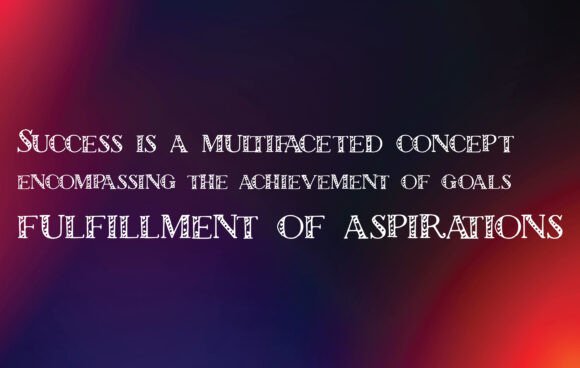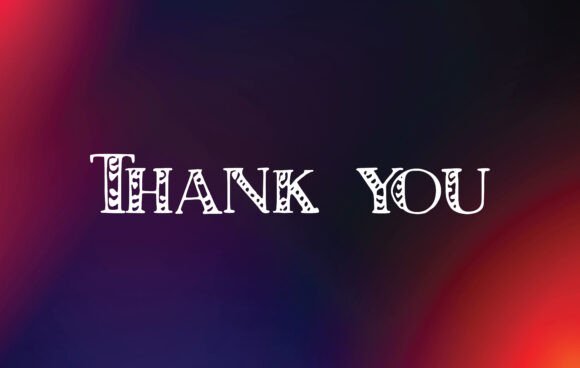
Introducing the Escher Font: Elevate Your Creative Projects with Elegance and Versatility
In the world of typography, fonts play a crucial role in bringing creative ideas to life. Among the numerous fonts available, the Escher Font stands out for its unique blend of elegance, legibility, and versatility. Designed to be a true favorite among designers and crafters, this font has the potential to take your creative projects to the highest level. Whether you’re working on magazine headlines, t-shirts, social media graphics, branding materials, wedding invitations, or cards, the Escher Font is perfect for a wide range of applications.
What Makes the Escher Font Special?
The Escher Font is crafted with precision and attention to detail, making it an excellent choice for both title and body text. Its legibility is one of its standout features, ensuring that your message is conveyed clearly and effectively, regardless of the medium. This font’s design is inspired by the works of M.C. Escher, known for his impossible constructions and tessellations, which gives it a distinctive and artistic flair.
Key Features of the Escher Font
- Legibility: The Escher Font is designed to be easy to read, making it suitable for body text as well as headlines.
- Versatility: Its elegant design makes it perfect for a variety of projects, from digital media to print materials.
- Elegance: The font’s unique style adds a touch of sophistication and creativity to any design.
- Wide Range of Applications: Ideal for magazine headlines, t-shirts, social media graphics, branding, wedding invitations, cards, and more.
Applications of the Escher Font
The Escher Font’s versatility is one of its most appealing qualities. Here are some of the many ways you can use this font to elevate your creative projects:
Magazine Headlines and Editorials
Make a statement with your magazine headlines using the Escher Font. Its bold and elegant design ensures that your headlines will stand out, drawing readers into your stories and features.
T-Shirts and Apparel
Take your t-shirt and apparel designs to the next level with the Escher Font. Its unique style and legibility make it perfect for creating eye-catching and memorable designs.
Social Media Graphics
In the digital age, social media graphics are crucial for engaging with your audience. The Escher Font can help you create stunning social media graphics that stand out in crowded feeds.
Branding and Marketing Materials
Establish a strong brand identity with the Escher Font. Its elegance and versatility make it suitable for logos, brochures, business cards, and other marketing materials.
Wedding Invitations and Cards
Add a touch of elegance to your wedding invitations, greeting cards, and other stationery with the Escher Font. Its sophisticated design ensures that your special occasions are celebrated in style.
Tips for Using the Escher Font
To get the most out of the Escher Font, consider the following tips:
- Experiment with Sizes: The Escher Font looks great in various sizes, from large headlines to smaller body text.
- Play with Colors: Don’t be afraid to experiment with different colors to match your brand or design theme.
- Combine with Images: Pair the Escher Font with high-quality images or illustrations to create visually appealing designs.
- Maintain Consistency: Use the Escher Font consistently across your designs to establish a strong brand identity.
The Escher Font is a powerful tool for designers and crafters looking to elevate their creative projects. With its unique blend of elegance, legibility, and versatility, this font is sure to become a favorite in your collection. Whether you’re working on a magazine headline, a t-shirt design, or a wedding invitation, the Escher Font has the potential to take your ideas to the highest level. So why wait? Explore the possibilities of the Escher Font today and discover a world of creative opportunities.